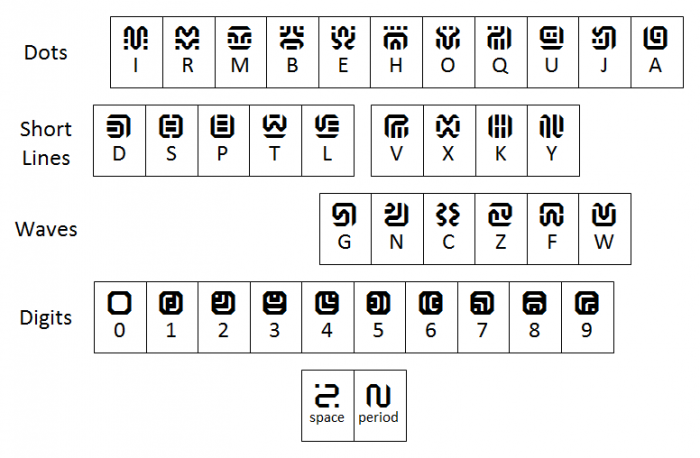
• Complete Sheikah Alphabet from Zelda: Breath of the Wild.
Includes J, Q, Hyphen, Exclamation Mark, Digits, Vertical Line, Period and Question Mark.
Exact thickness, angles and spacing.
(The "Period" and "Question Mark" characters are never used in game and only appear in the game files. The "Vertical Line" character only appear in the "gyro" controls in "apparatus" shrines and is not otherwise listed in the file that list all other characters. It is not known if those characters should be considered cut/scrapped and if they are canon or not.)
Updated March 5, 2017: The Hyrule Compendium in game shows that that was believed to be digits 1-5 (pins) is actually digits 0-4. Also, it shows that pins are actually in inverted colors.
Updated April 4, 2017: Added a dummy character so that a line spacing of 1.0 will not juxtapose glyphs vertically (a minimal white space will be kept).
Updated April 11, 2017: A datamining of the game reaveals that what was believed to be the "Space" and "Period" characters are actually the "Hyphen" and "Exclamation Mark". Also, the "Period" and "Question Mark" do exist in the game files but are never used in game. Source: spriters-resource.com/wii_u/thelegendofzeldabreathofthewild
- james0x57.github.io/sheikah/ (They've got digit corners wrong. Digit 5 is missing and digit 0 is invalid. Digits are their "pin" variants instead of the actual symbols.)
- imgur.com/a/PnlGQ/ (For Q. Source unknown. They have errors in J, U, W, Y and hyphen.)
- gamnesia.com/journals/entry/the-legend-of-zelda-breath-of-the-wild-how-to-decrypt-hylian-runes (For J.)
I thought that a list of glyphs sorted by design could be useful for searching. Look for dots first, then lines, then waves.
Also, similar characters are near each other vertically (see MT, TB, QK, OX, XC, VN). Other similarities do exist like CE, but it's impossible to pair them all.
OUTDATED IMAGE (February 16, 2017 version) - Correct version is a few comments below.
OUTDATED IMAGE (March 5, 2017 version) - Correct version is a few comments below.
But there is a problem with spacing. when writing more then a single line the symbols blend together a bit and it makes it hard to read.
Also. You currently have the numbers mixed up.
012345 are wrong. when I press 1 it gives me the symbol for 2
It does this upto 4. Then the number 5 gives me a sideways 0 symbol.
I am currently working on a cursive font for Sheikah (BotW) so it looks less chisseled and more hand written.
I "fixed" the line spacing (changed the default). With a line spacing of 1.0, two adjacent characters will now have the same distance vertically that they do horizontally.
(PS: The numbers are correct. See the description: some old sources are wrong.)
This has a kind of ethereal quality. I don't know anything about Zelda, I simply appreciate the thought, observation, effort, presentation, shapes  and those perfect samples you show here.
What you have here as a space and a period are incorrect. The "space" glyph is actually a Hyphen, and the "period" is actually an ecalmation mark. Two new glyphs were found in the gamerip files for period and question mark respectively. There is a proper space, although it's not used in sentences. The only time in game that the space is used is for lines such as the "It's dangerous to go alone." and "Now loading" easter eggs.
I've made the swaps and added the two new glyphs. The "proper space" and "hyphen" had been mistaken for each other by decipherers because the former was rarer. In fact, it is because normal Sheikah script doesn't use spaces.
CORRECT VERSION (April 11, 2017)